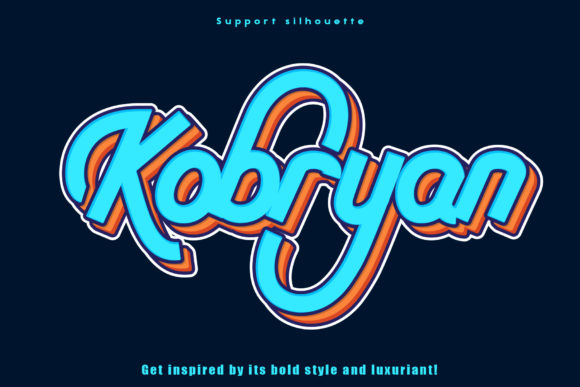
Introducing Kobryan Font, where charm and elegance meet in perfect harmony. This exquisite script font, skillfully crafted by thomasaradea, is a visual masterpiece that will bestow upon your designs an air of sophistication and timeless beauty.
Kobryan is more than just a font; it's a gateway to a world of creative possibilities. Its sweeping strokes and captivating swashes dance across the page, inviting you to embark on a journey of artistic expression. Whether you're creating logos, branding, invitations, or social media posts, Kobryan will infuse your projects with a touch of luxury and refinement.
Step into a realm where your imagination runs wild, where words transform into works of art. With Kobryan at your fingertips, discover the power to captivate audiences and make a lasting impression. This font is a storyteller, a conductor of emotions, weaving tales of love, joy, and wonder with every letter it graces.
With Kobryan, you hold the key to unlocking a world of elegance and charm. Its versatility knows no bounds, lending its exquisite touch to a myriad of projects, from wedding invitations that radiate romance to business cards that exude professionalism. Let Kobryan be your artistic muse, your guiding light in creating designs that resonate with hearts and minds.
Embrace the charm of Kobryan, and watch as your creative vision takes flight. This font is more than just a collection of letters; it's an invitation to let your imagination soar and create masterpieces that speak to the soul.